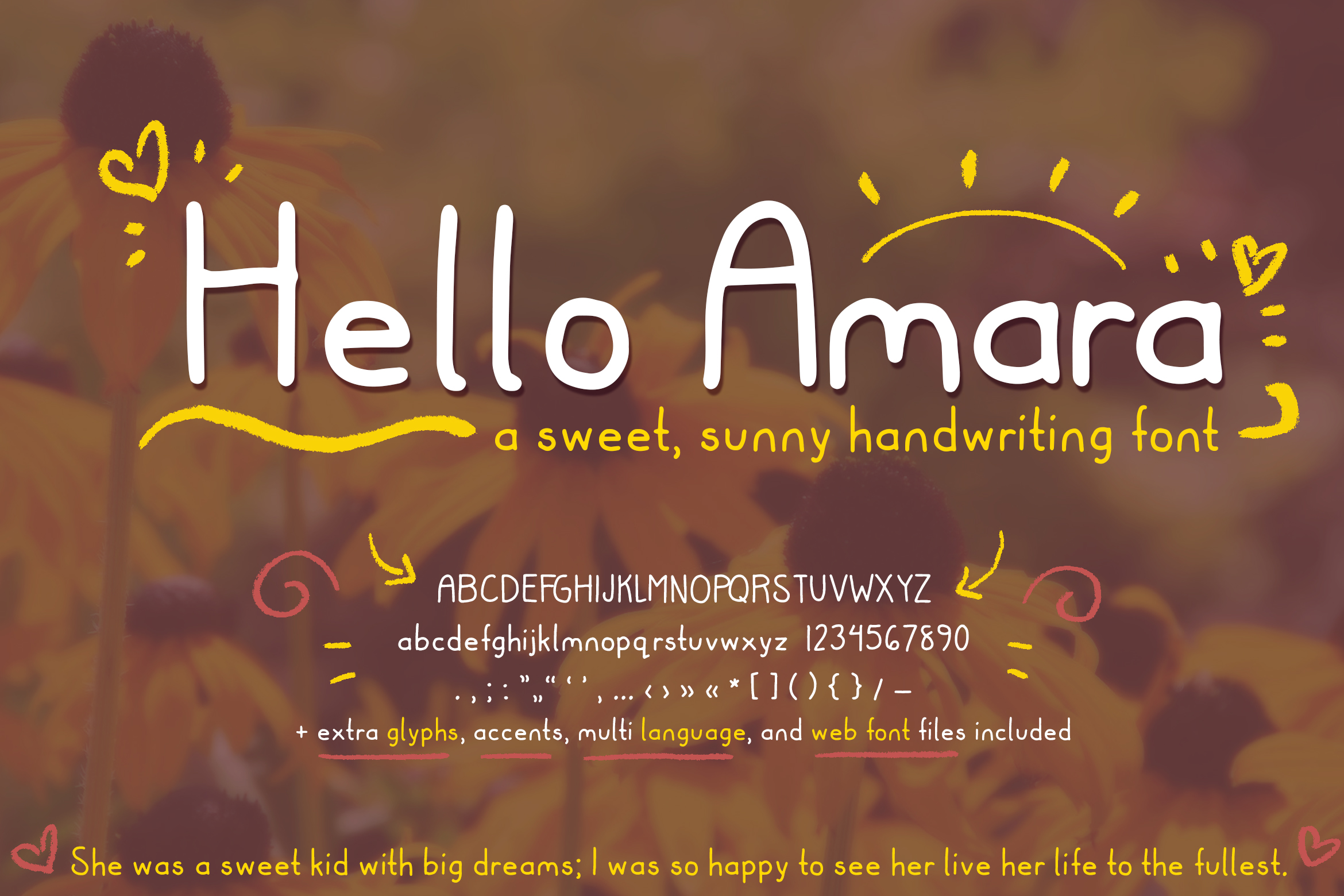
Introducing Hello Amara, a cute handwritten font with personality.
I love a nice handwriting font; they can have so much personality, and they are such a fun choice if you’re looking for informal aesthetic fonts. If you’re looking for cute fonts, give this one a try; it can work well for t-shirts and DIY projects with your Cricut! It’s also a great choice for packaging, branding, and much more. Dress it up or dress it down. 🙂 It includes web font files for your website too!
There’s also extended Latin characters, as well as other glyphs! Every letter was lovingly drawn by me. This cute font is dedicated to a dear friend of mine.